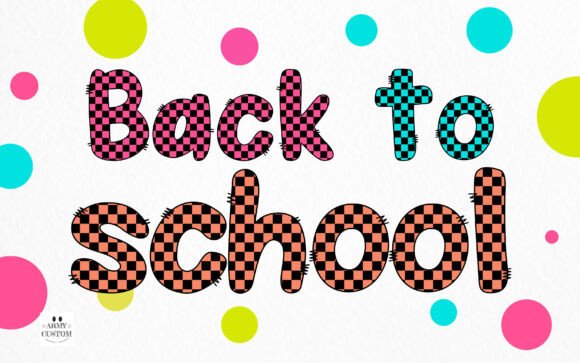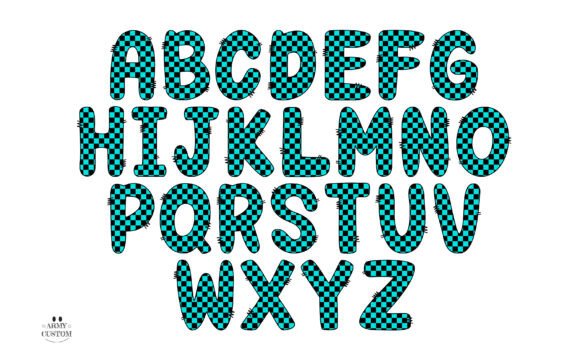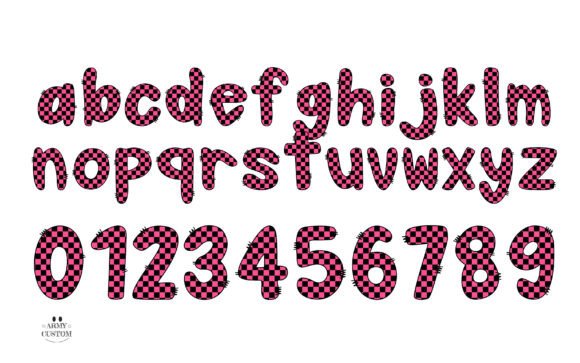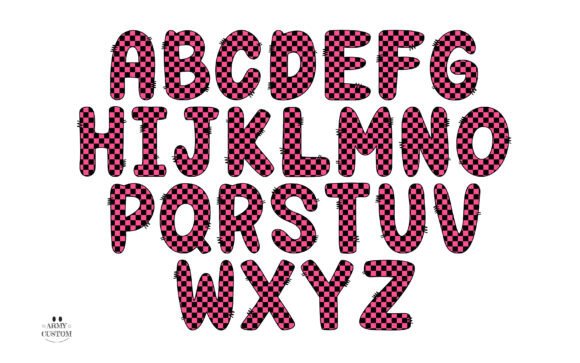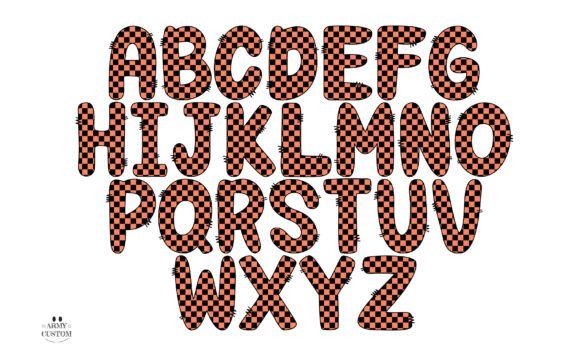
Introducing the Checkerboard Font: A Whimsical and Vibrant Addition to Your Design Projects
Are you looking for a font that can add a dash of whimsy and playfulness to your creative projects? Look no further than the Checkerboard Font, a delightful and enchanting mix of colors and design. This font family is specifically crafted to infuse your designs with an element of joy and fun, making it perfect for cute theme endeavors, creative crafts, and playful designs.
The Checkerboard Bundle: A Canvas of Creativity
The Checkerboard Bundle Color font family is a stunning collection of fonts that can paint a canvas of creativity that leaps off the page. With its unique and vibrant design, this font collection is ideal for designers and crafters who want to add a touch of charm and personality to their projects. Whether you’re working on a fun craft project, a cute theme design, or a playful marketing campaign, the Checkerboard Font is the perfect choice.
Unlock Your Creativity with the Checkerboard Font
With the Checkerboard Font, you can harness the power of creativity and let your imagination take flight. This font collection is designed to be versatile and easy to use, making it perfect for a wide range of design projects. Whether you’re a seasoned designer or a crafty DIY enthusiast, the Checkerboard Font can help you create stunning designs that are sure to impress.
Key Features of the Checkerboard Font
- Enchanting mix of whimsy and vibrancy
- Ideal for cute theme endeavors and playful designs
Tips and Tricks for Using the Checkerboard Font
Here are some tips and tricks for getting the most out of the Checkerboard Font:
- Use the font to add a playful touch to your designs
- Experiment with different colors and combinations
- Pair the font with other fun and playful design elements
In conclusion, the Checkerboard Font is a unique and vibrant addition to any design project. With its enchanting mix of whimsy and playfulness, this font collection is perfect for designers and crafters who want to add a touch of charm and personality to their designs. Whether you’re working on a fun craft project or a playful marketing campaign, the Checkerboard Font is the perfect choice. So why wait? Unlock your creativity and let your imagination take flight with the Checkerboard Font.